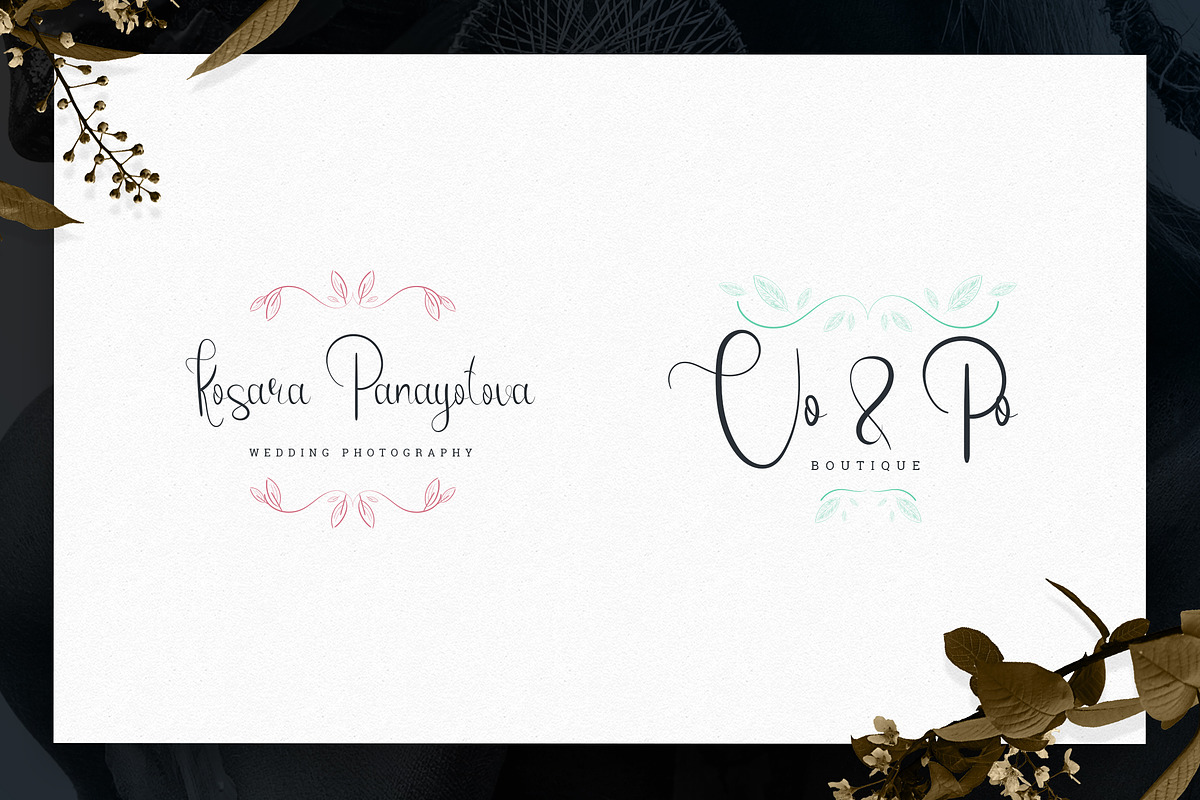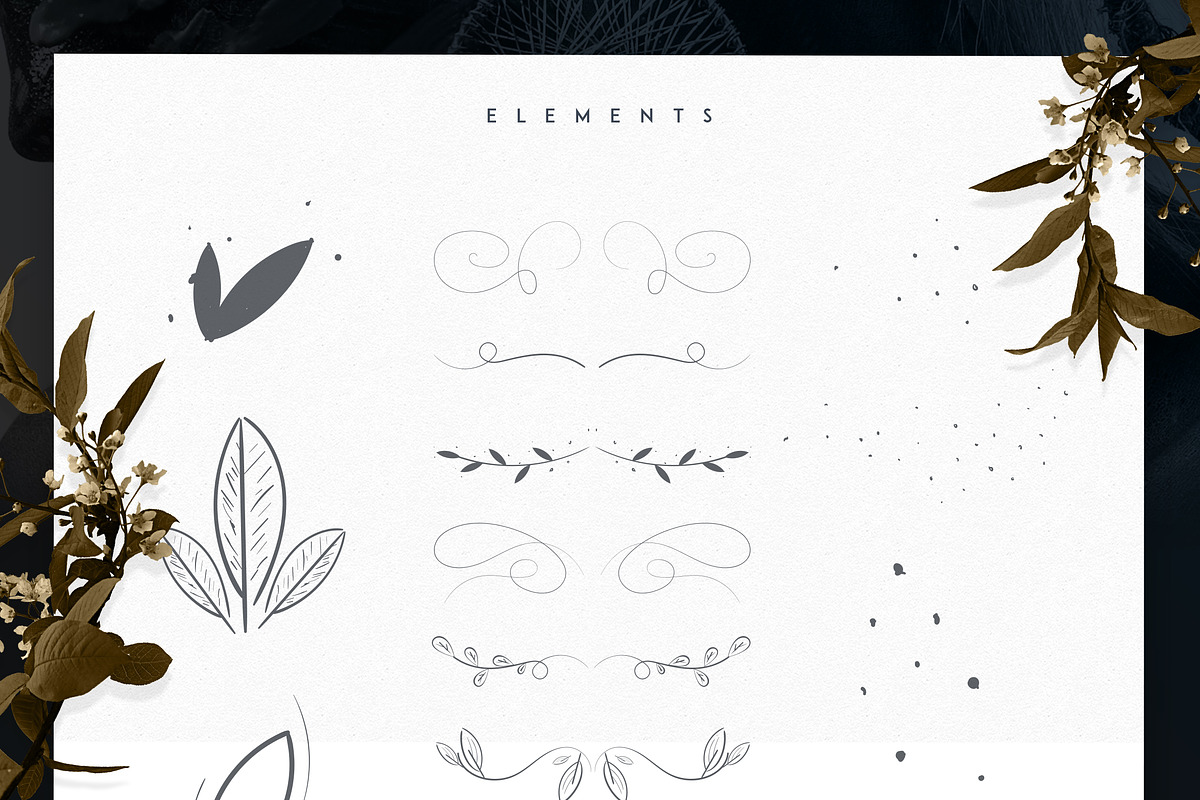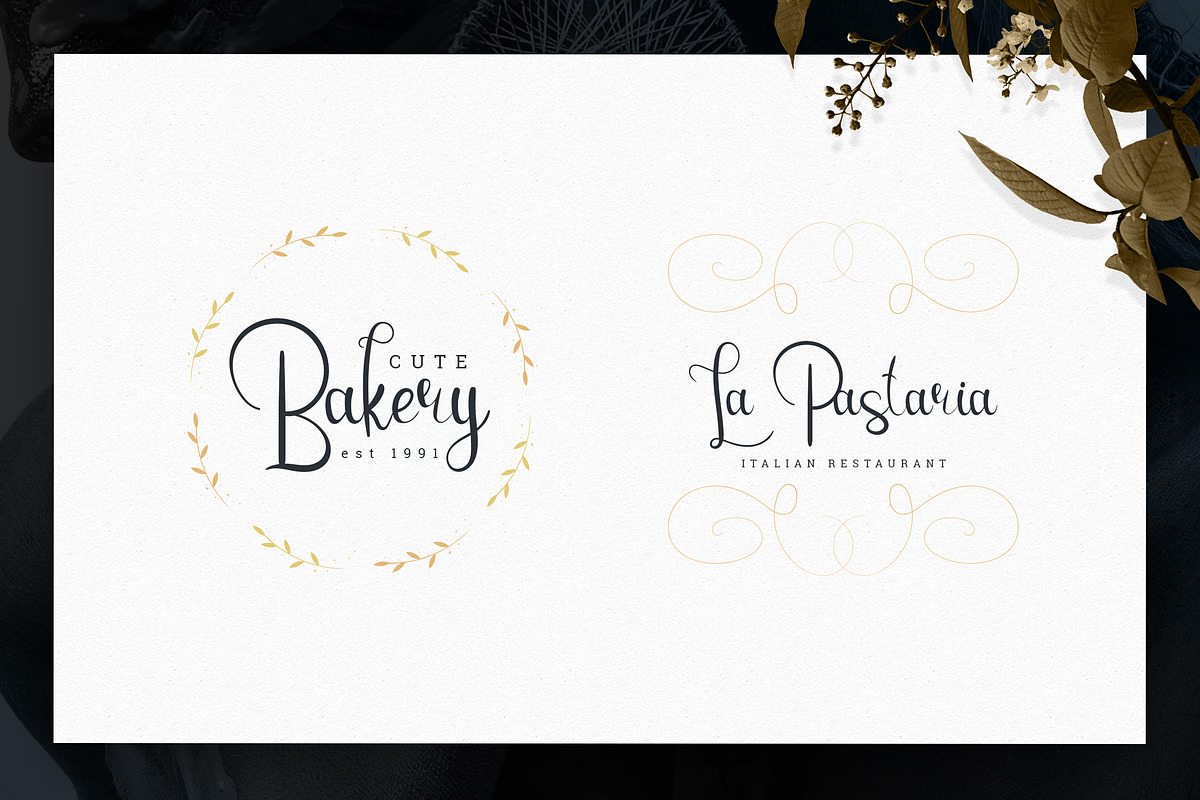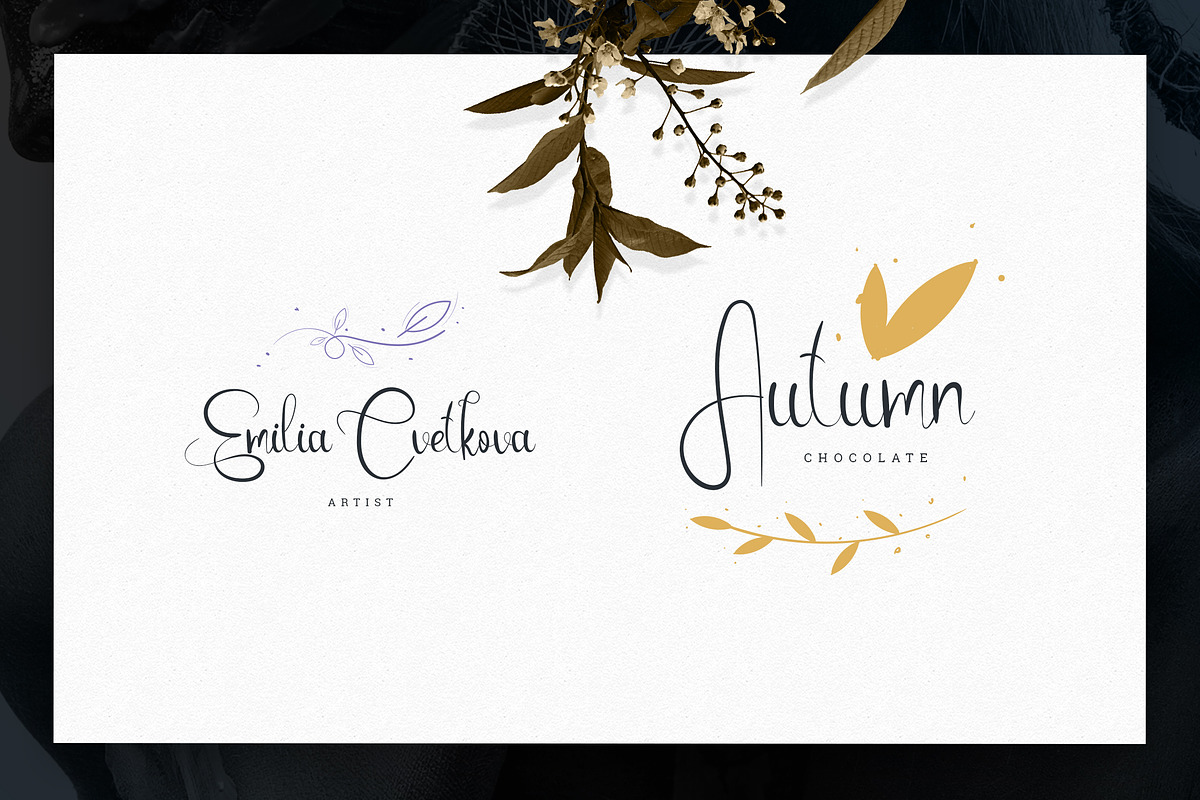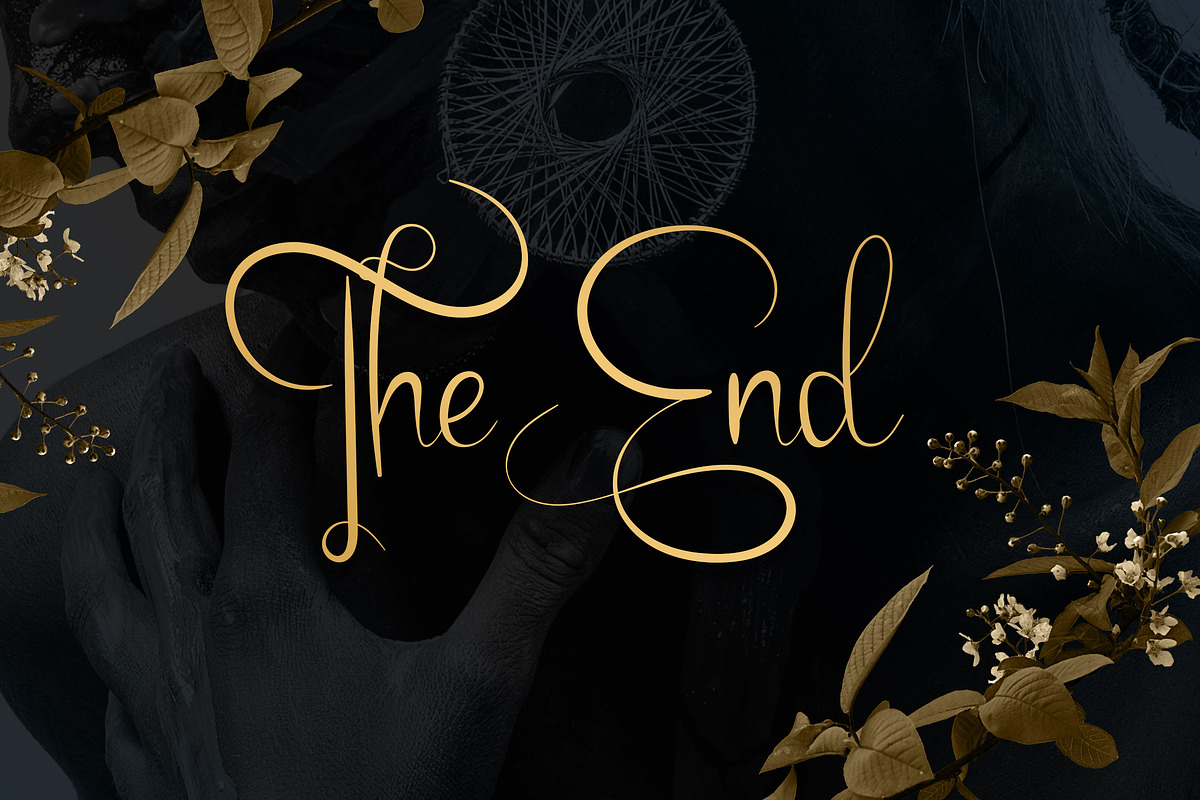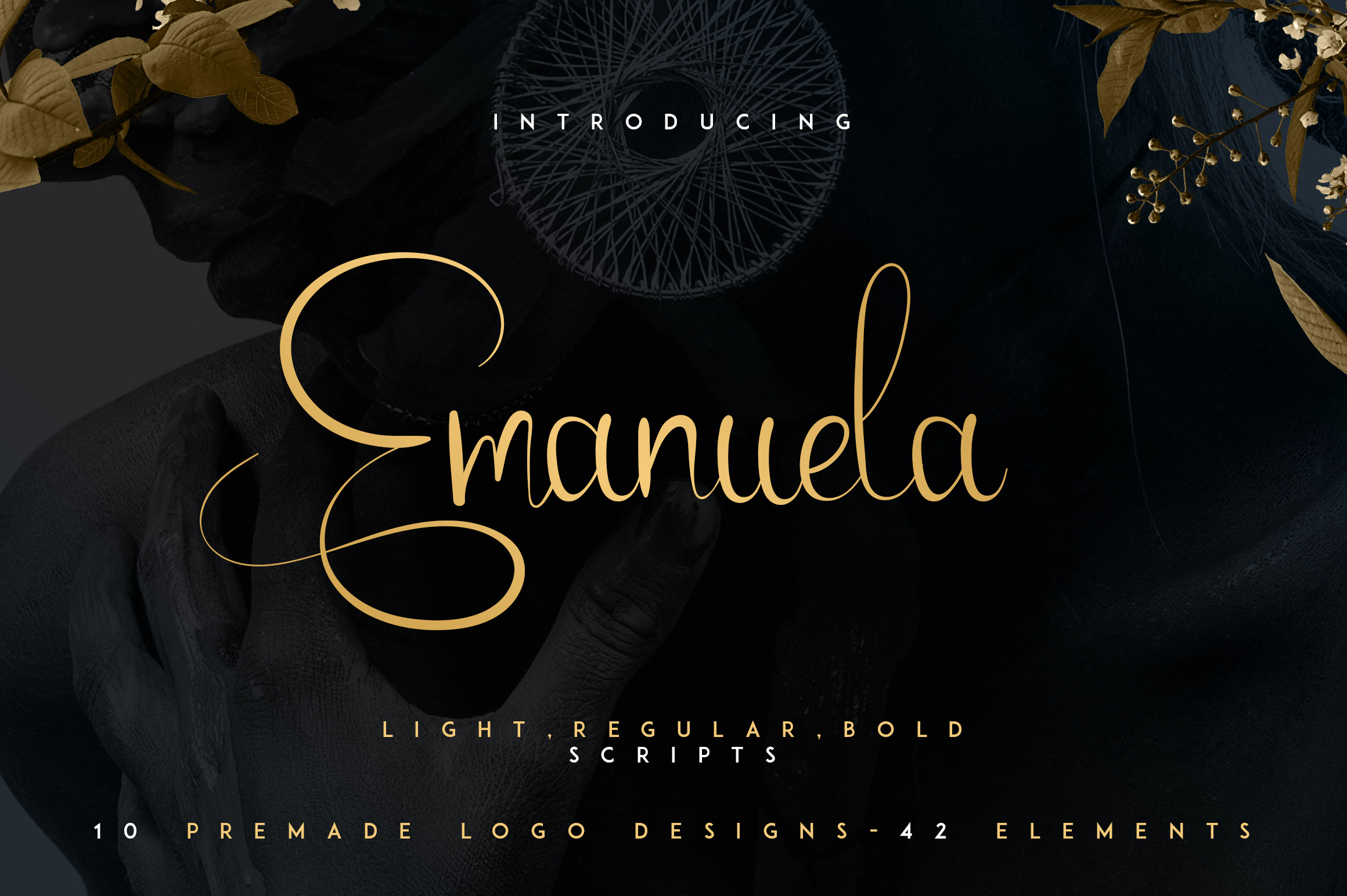
Emanuela Typeface and Designs
Introducing: Emanuela Typeface ! A handwritten font with a personal charm. With dry clean lines, Emanuela is perfect for branding projects, home-ware designs, product packaging - or simply as a stylish text overlay to any background image.
Emanuela comes with
- Light version
- Regular version
- Bold version